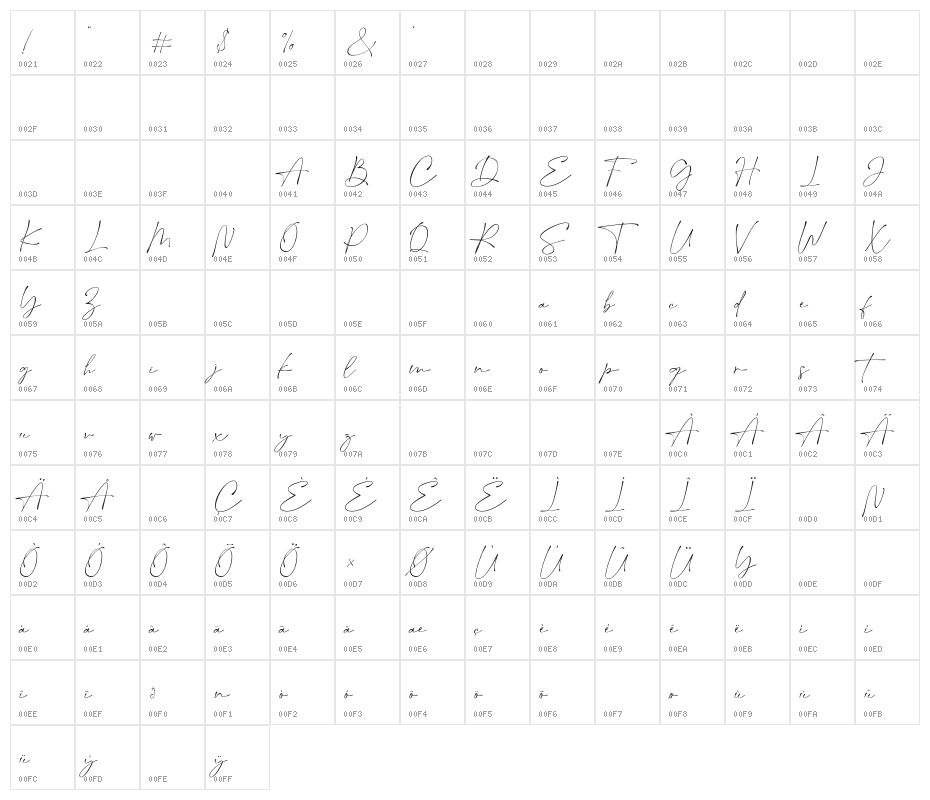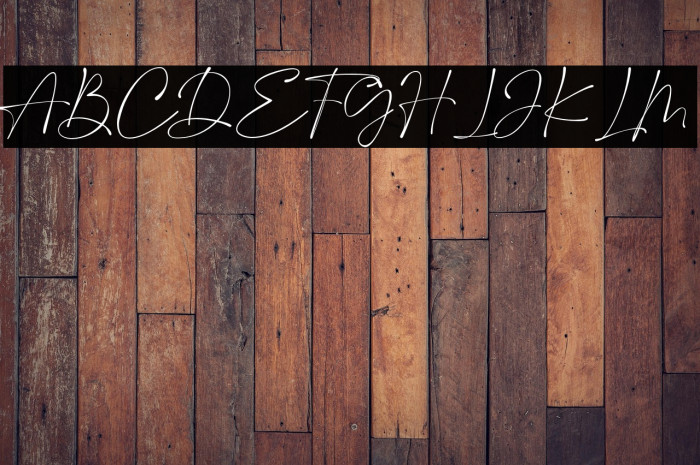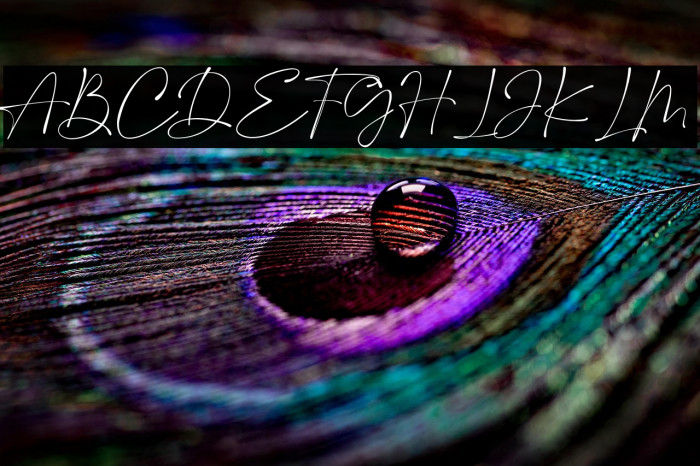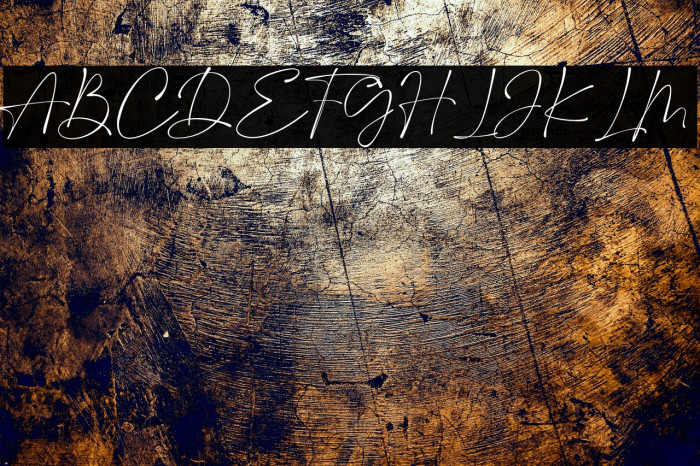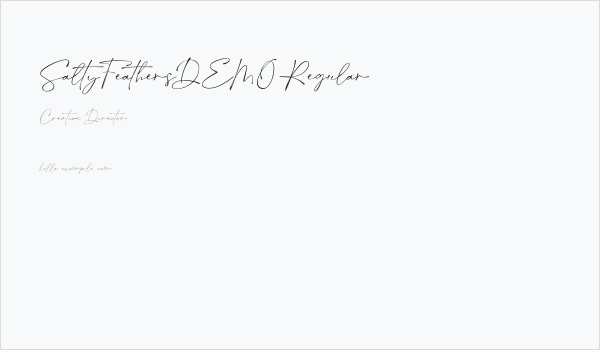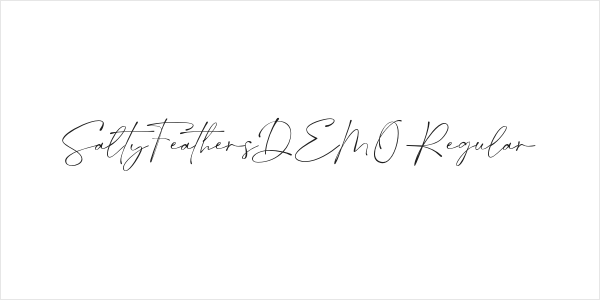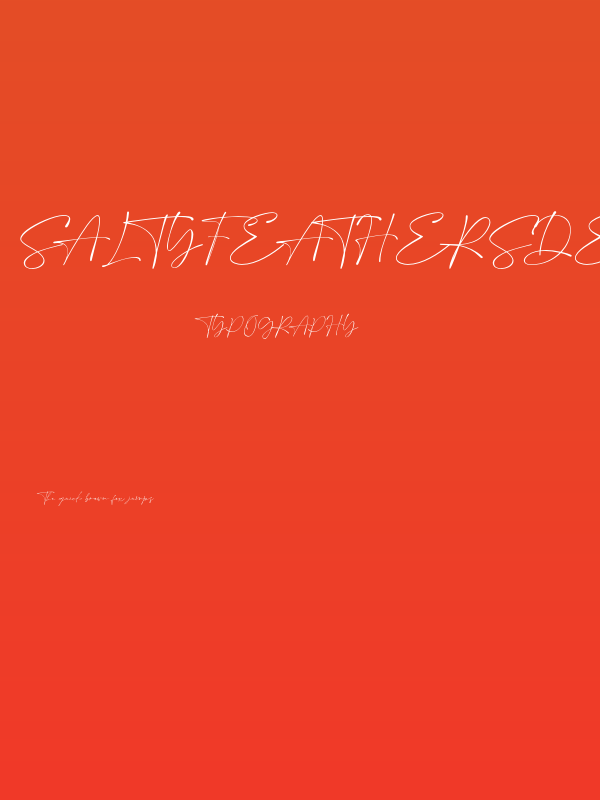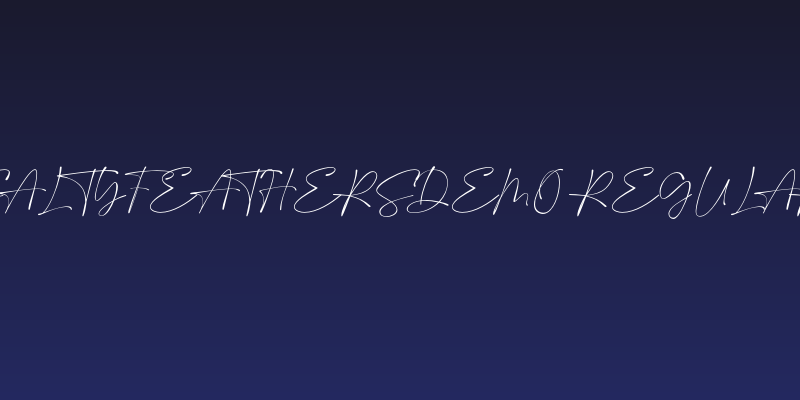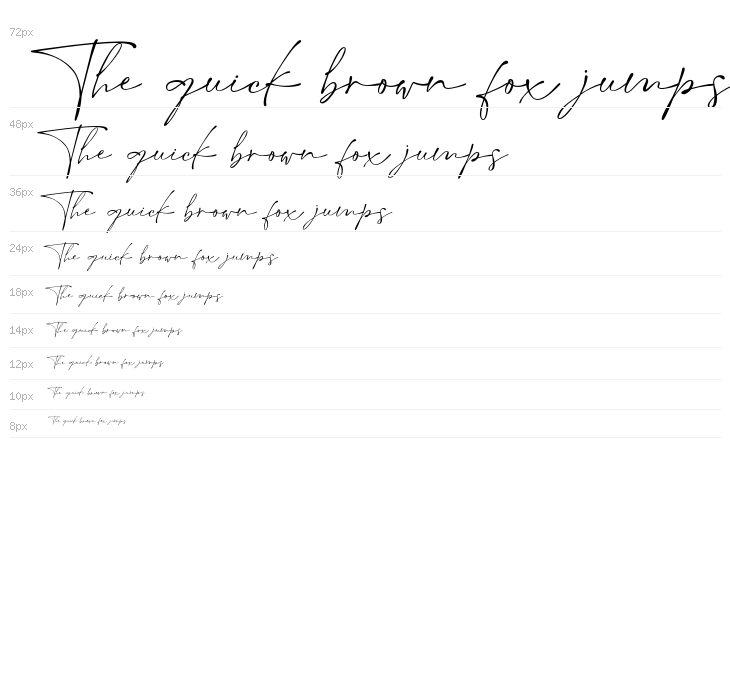
SaltyFeathersDEMO-Regular Font
SaltyFeathersDEMO-Regular Description
This font features a flowing, handwritten style that exudes elegance and sophistication. The characters are crafted with a natural, cursive flair, giving each letter a unique and personal touch. The strokes are thin and delicate, with a consistent fluidity that enhances its graceful appearance. The uppercase letters are slightly more elaborate, while the lowercase letters maintain a smooth and continuous flow. Special characters are integrated seamlessly, maintaining the overall aesthetic. This font is ideal for projects that require a personal, artistic touch, such as invitations, greeting cards, and branding materials.
| Overall Style | Elegant, Artistic |
| Proposed Projects | Ideal for wedding invitations, personal branding, greeting cards, and artistic projects. |